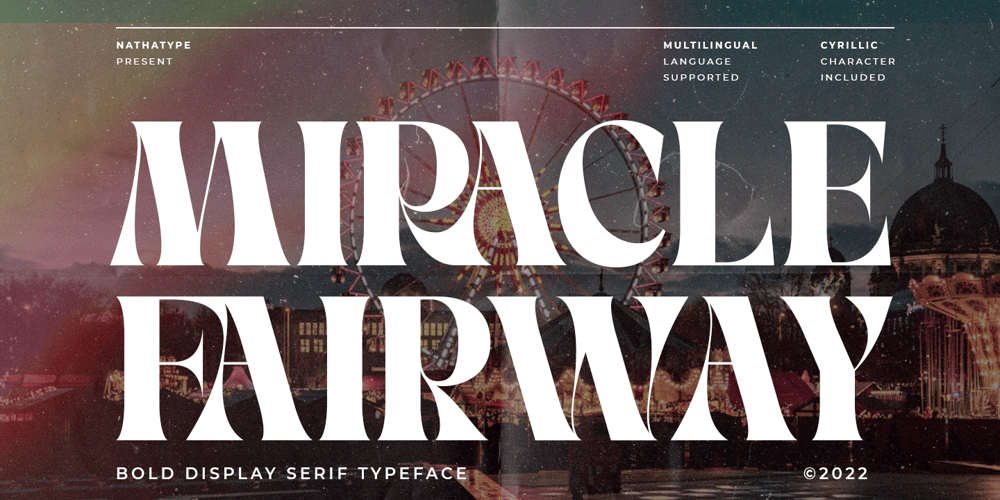
Miracle Fairway
Miracle Fairway font
Miracle Fairway Font Family was designed by Donis Miftahudin and published by Nathatype. Miracle Fairway contains 1 styles and family package options. Miracle Fairway is a display serif font in a thick weight design with which you can create elegant, modern, interesting designs full of fun energy. The letters’ proportions and the high contrasts are at the same level for a great legibility reason to make this font applicable to any text sizes. You may also enjoy various features available in this font.Features: Ligatures Multilingual Supports PUA Encoded Numerals and Punctuations Miracle Fairway fits best for various design projects, such as posters, banners, logos, magazine covers, quotes, headings, printed products, invitations, name cards, merchandise, social media, etc. Find out more ways to use this font by taking a look at the font preview.Thanks for purchasing our fonts. Hopefully, you have a great time using our font. Feel free to contact us anytime for further information or when you have trouble with the font. Thanks a lot and happy designing.